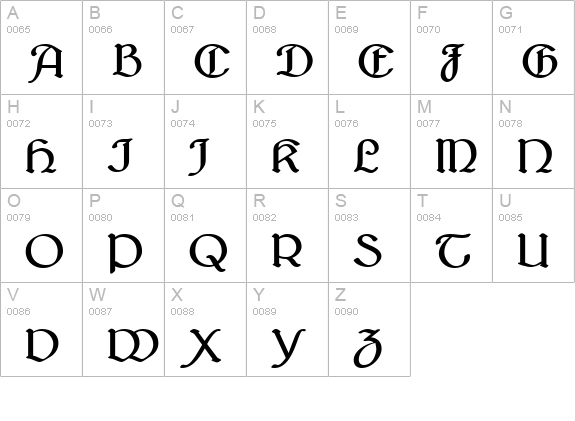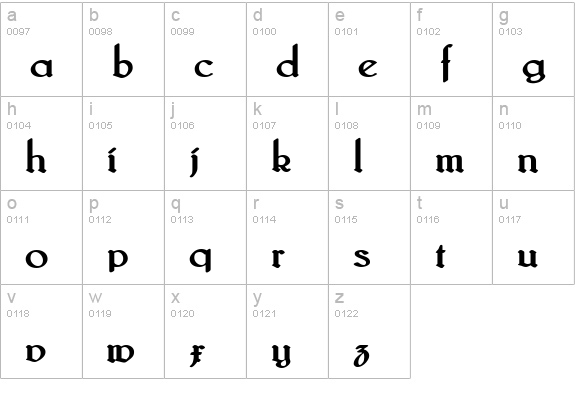
Bridgnorth Bold is a strong, high-contrast variant in the Bridgnorth typeface family \xE2\x80\x94 well suited to headlines, attention-grabbing titles, and strong calls-to-action.
Introducing Bridgnorth Bold font, a striking typeface that exudes strength and confidence. With its bold and impactful design, Bridgnorth Bold commands attention and makes a statement in any project. The sturdy lines and sharp edges of this font give it a modern and edgy look, perfect for branding, headlines, and graphic design projects. What's even better is that Bridgnorth Bold is available for free download at FontsMarket.com! This means you can easily access this powerful font and elevate your designs without breaking the bank. Don't miss out on the opportunity to add Bridgnorth Bold to your font collection and take your projects to the next level. Download it now and unleash the boldness of Bridgnorth in your creations.